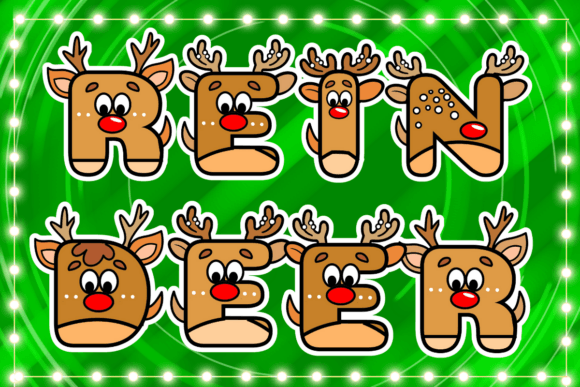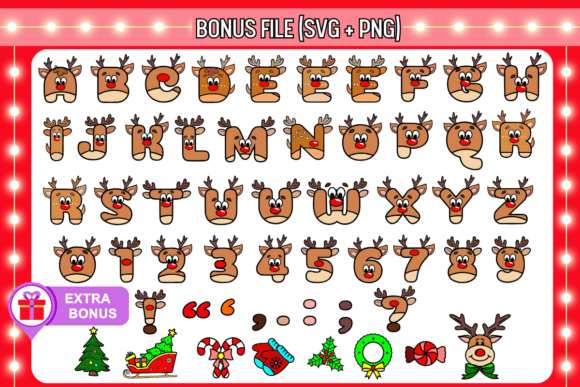
Reindeer Font
About the Reindeer Font
From logos to headlines, the Reindeer Font is the perfect choice for making a lasting impression. Reindeer is a festive and decorative font with unique shapes that capture the holiday spirit. Its playful and detailed design makes it great for Christmas-themed projects and celebrations!
Reindeer’s playful design excels in headlines, short titles, and festive packaging where its decorative elements shine. It works well for branding projects targeting a younger audience or those emphasizing a lighthearted, whimsical approach. However, its intricate details make it unsuitable for body text or UI elements; readability suffers at smaller sizes.
Consider pairing Reindeer with a clean sans-serif like Helvetica Neue for a balanced contrast, or a classic serif such as Garamond for a more traditional, yet still festive, feel. A simple script font could add a touch of elegance to holiday invitations or greeting cards using Reindeer for the main headings.
Reindeer’s overall personality is cheerful and festive, making it ideal for projects needing a playful, celebratory tone. Avoid using it for brands or projects requiring sophistication or seriousness.